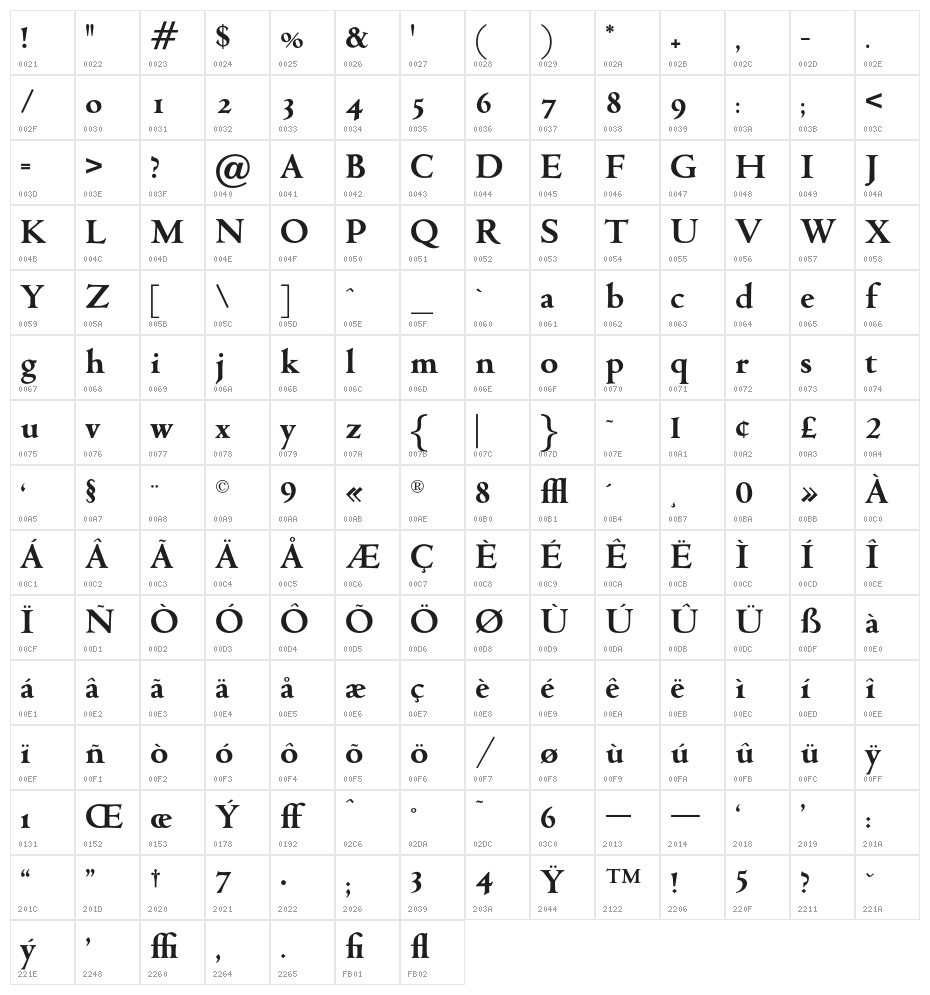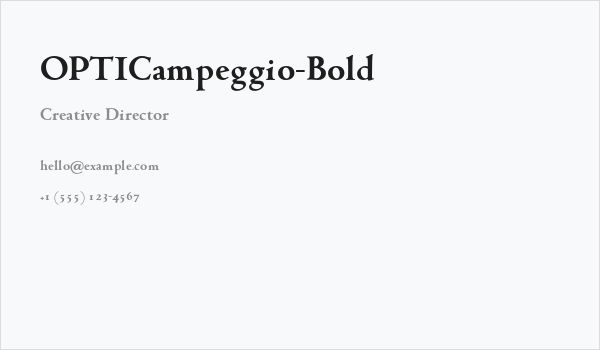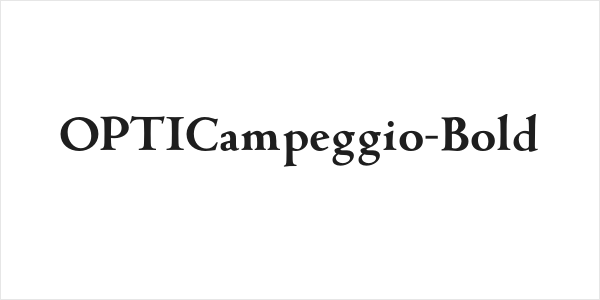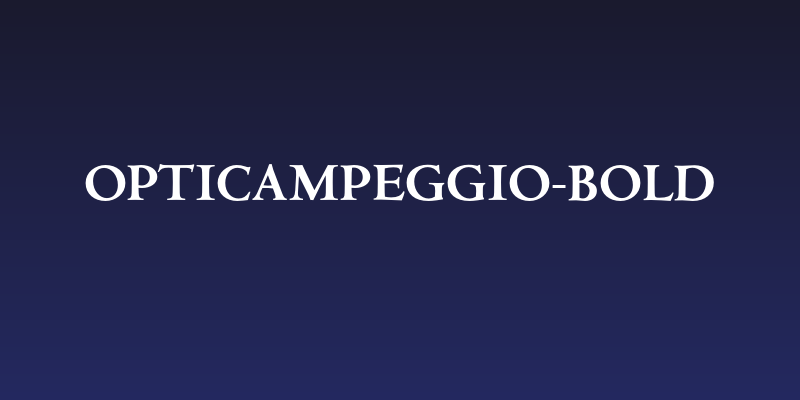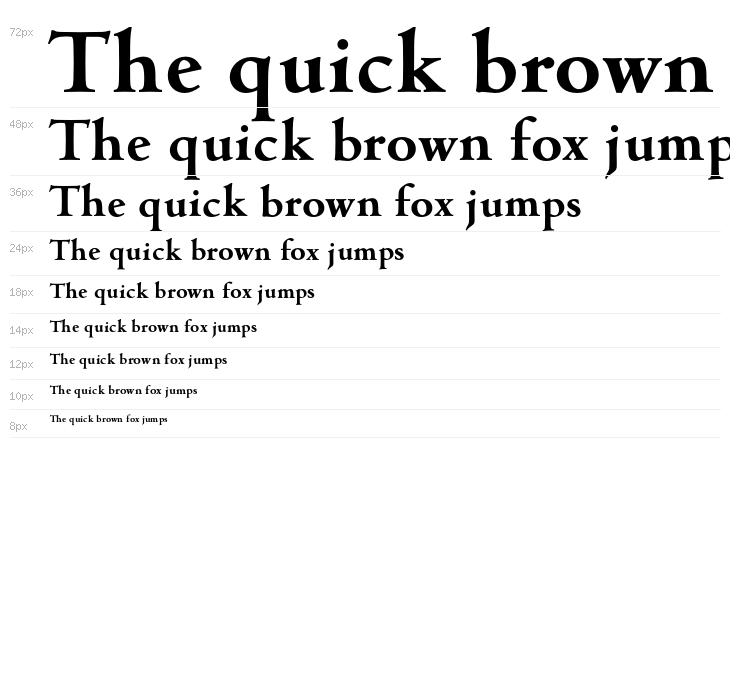
OPTICampeggio-Bold Font
OPTICampeggio-Bold Description
This font features a bold and striking serif design, characterized by its strong, thick strokes and pronounced serifs. The uppercase letters exhibit a classic elegance with a slight flair, while the lowercase letters maintain a consistent weight, offering a harmonious balance. The numerals are robust and clear, ensuring readability. Special characters are crafted with attention to detail, enhancing the font's versatility. Overall, the font exudes a sense of tradition and authority, making it suitable for formal and impactful designs.
| Use Case | Headlines, Logos, Editorial design |
| Proposed Projects | Ideal for book covers, formal invitations, branding, and editorial design. |